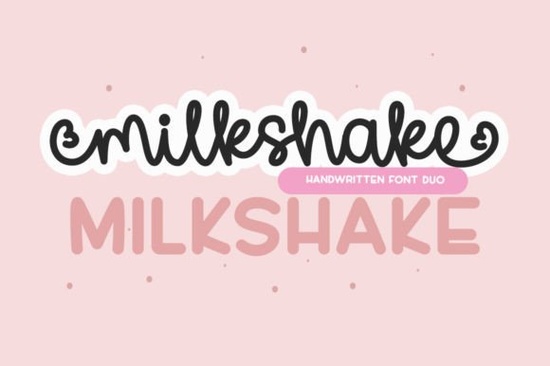
If you're looking for a playful yet polished handwritten font that brings warmth and personality to your designs, the Milkshake Font might be just what your next project needs. Designed with crafters, small business owners, and print-on-demand creators in mind, Milkshake includes two complementary handwritten styles that work beautifully together or on their own.
What makes this duo stand out is how effortlessly it blends cheerfulness with sophistication. Whether you’re designing greeting cards, branding a boutique bakery, or creating custom apparel, these fonts add a friendly, handcrafted feel without looking messy or overly casual. Plus, because Milkshake is PUA (Private Use Area) encoded, accessing alternate characters, swashes, and stylistic flourishes is simple no complicated software tricks required.
Why choose a dual-font set like Milkshake?
Having two coordinated fonts gives you flexibility. You can use one for headlines and the other for supporting text, or layer them for depth in logos and packaging. For example, pair the bolder script with a lighter companion to create contrast while maintaining visual harmony. This approach works especially well for:
- Wedding invitations and event signage
- Product labels for handmade goods
- Social media graphics with a personal touch
- Custom mugs, T-shirts, or tote bags
Unlike single-style fonts that can feel repetitive, a thoughtfully designed pair like Milkshake offers variety without clashing. And because both fonts share the same design DNA similar letterforms, stroke weights, and rhythm they naturally belong together.
How does PUA encoding help non-designers?
You don’t need to be a pro in Illustrator or Photoshop to make the most of Milkshake. PUA encoding means all the decorative extras like end swashes, ligatures, or alternate letters are mapped to standard keyboard keys or accessible through basic glyph panels in most design apps (including Canva, Silhouette Studio, and Cricut Design Space). That means even hobbyists can create professional-looking results without hunting for obscure plugins or workarounds.
For instance, typing a word might automatically replace certain letter combinations with a connected flourish, or holding Shift while typing could give you an alternate “y” or “g” with a longer tail. It’s subtle, but those details elevate your work from generic to genuinely custom.
What other fonts pair well if you want more options?
Tips for using Milkshake effectively
To get the best results with this font pair:
- Avoid over-decorating. Let one element shine either swashes or alternates not both at once.
- Use generous spacing. Handwritten fonts often benefit from slightly increased letter-spacing to maintain readability.
- Test at different sizes. Some flourishes look great large but disappear when scaled down for tags or stickers.
- Stick to light backgrounds. These fonts work best on white or pastel tones; dark backgrounds can muddy the delicate strokes.
Remember: the goal is to enhance your message, not distract from it. A little personality goes a long way.
Before you download Milkshake, ask yourself: Do I need a font that feels personal but still clean? Will I use both styles, or just one? Am I working on something seasonal (like summer treats or birthday parties) where cheerful typography adds value? If yes, this duo could save you time and spark fresh ideas.